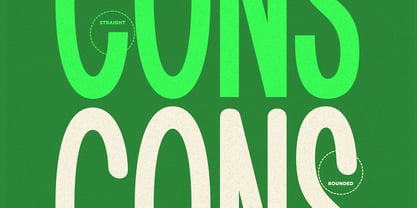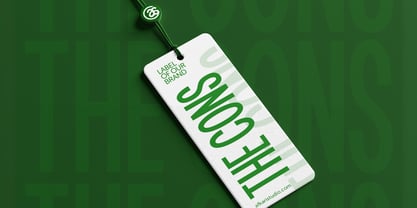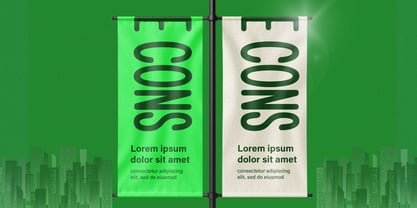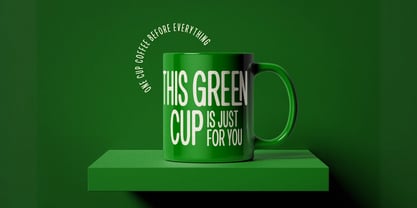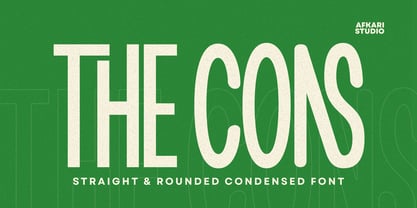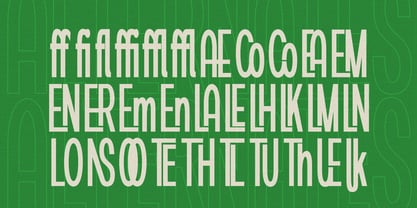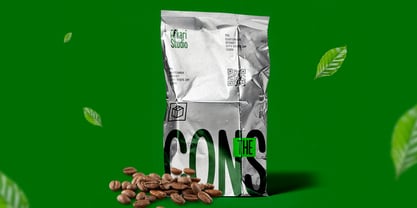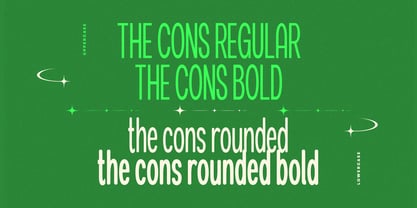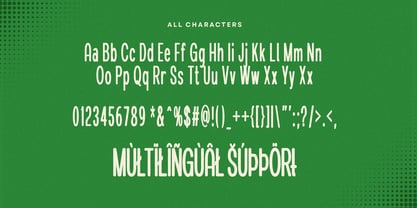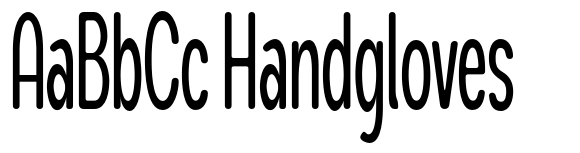
The Cons
The The Cons Font Family was designed by Musthafa Kamal Emje and published by Afkari Studio. The Cons contains 4 styles and family package options.
The Cons – Condensed Sans Serif Display Font is a strong, compact typeface crafted for designers who need maximum impact with minimal space. Its narrow letterforms and clean lines make it perfect for bold headlines, editorial layouts, modern branding, etc.
Designed with flexibility in mind, The Cons includes 4 versatile styles:
1. Regular – sleek and minimal for modern aesthetics
2. Bold – striking and confident for high-impact design
3. Rounded – softened edges for a friendlier, approachable look
4. Bold Rounded – bold with a touch of warmth and personality
Whether you're building a tech-forward brand or an urban editorial spread, The Cons delivers clarity, style, and adaptability in every character. It's the perfect choice for designers who value bold presence and clean design.
Features;
- Uppercase, Lowercase, Number, and Punctuation
- Special Alternates and ligatures
- PUA Encoded Characters – Fully accessible without additional design software.
- Mültîlíñgúãl Sùppört for; ä ö ü Ä Ö Ü ß ¿ ¡
Make a bold statement in tight spaces with The Cons.